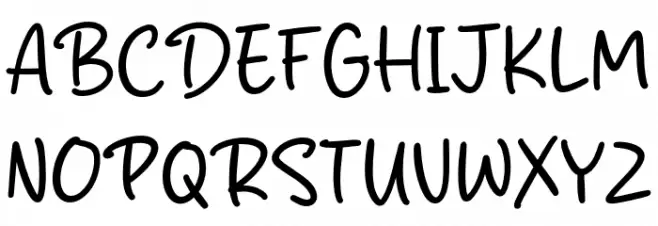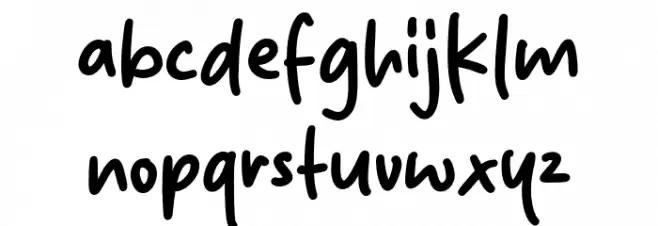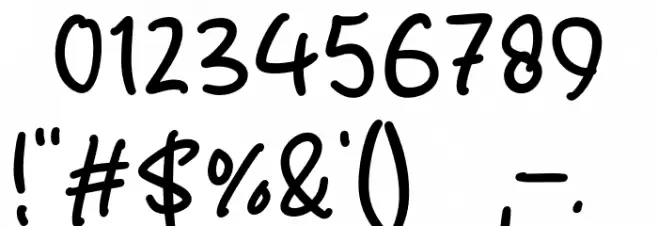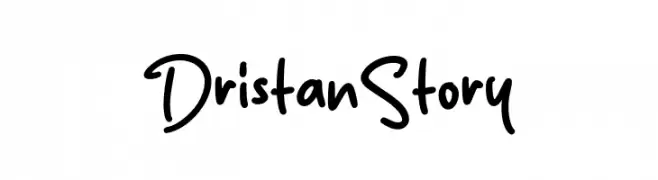
Dristan Story
A playful and casual handwritten font with smooth curves and a friendly appearance.
Casual handwritten font with smooth curves.
- Proposed Projects: Greeting cards, invitations, personal branding.
- Overall Style: Casual
- Use Case: Headlines, Informal text, Personal projects